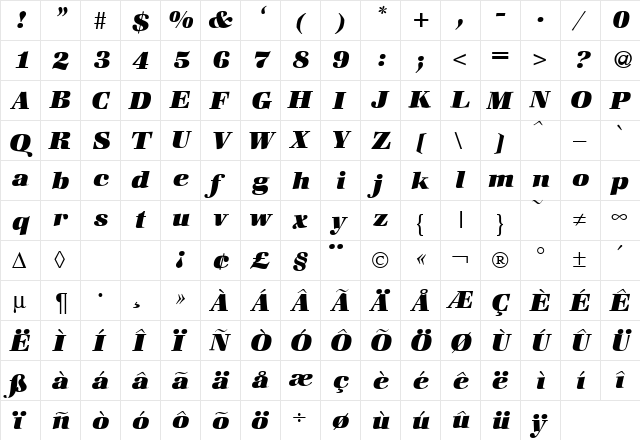
ZabriskieBookHeavy RegularItalic
Design Context for ZabriskieBookHeavy Typeface
ZabriskieBookHeavy is a composed and adaptable typeface that performs quietly and consistently across a wide range of design contexts. The dynamic lean of this cut emphasises speed and emphasis in any layout.
Pro Tip: Try ZabriskieBookHeavy for annotation and caption copy alongside an upright companion — the contrast in angle creates a dynamic but ordered typographic system.